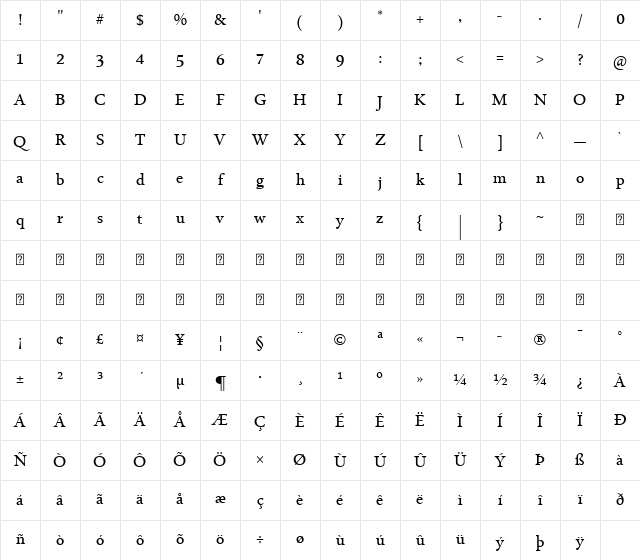
Microsoft Uighur Regular Free Font
Microsoft Uighur Regular
Foundry: Microsoft
Designer: Mamoun Sakkal
Design Context for Microsoft Uighur
Microsoft Uighur is a composed and adaptable typeface that performs quietly and consistently across a wide range of design contexts.